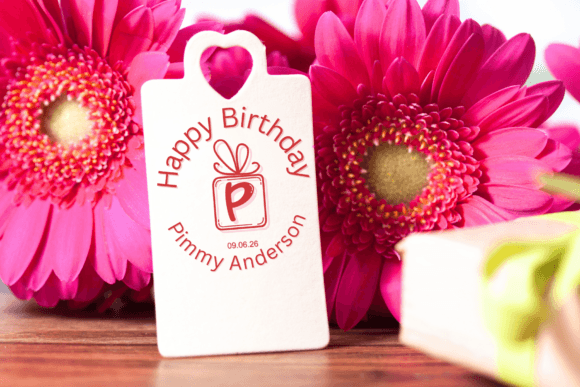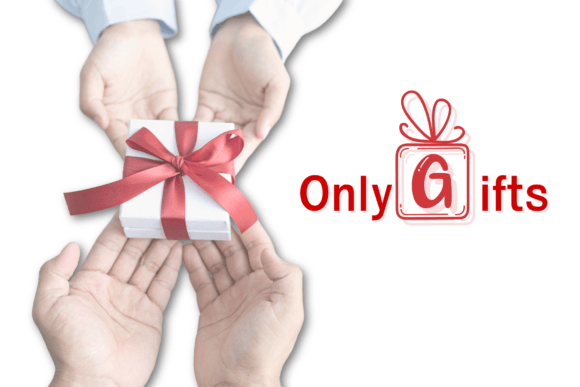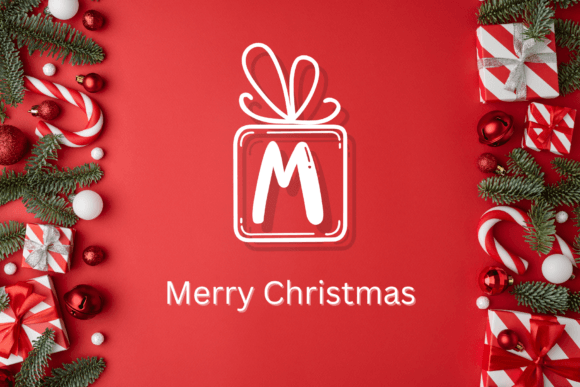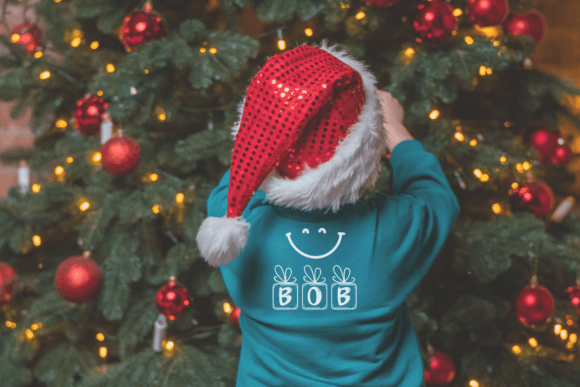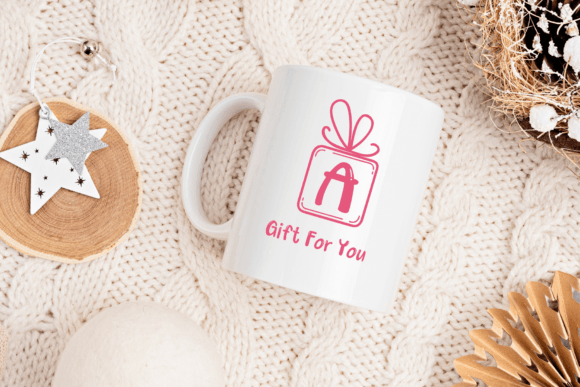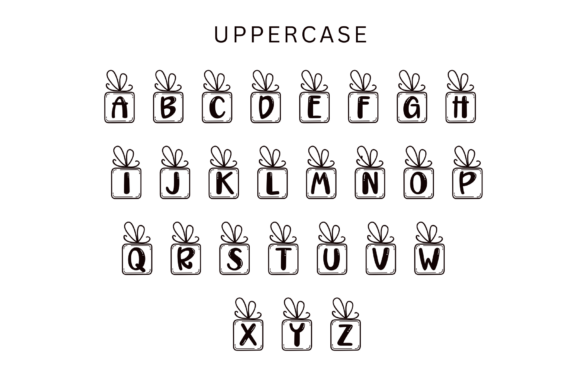
Introducing Gift Box Font: The Ultimate Addition to Your Creative Arsenal
Are you a designer, crafty enthusiast, or someone who loves to add a personal touch to gifts? Look no further! We’re excited to introduce the Gift Box Font, a charming and versatile typeface designed to elevate your creative projects and gifting needs. This delightful font is set to become your go-to choice for creating memorable, joy-filled moments that will leave a lasting impression.
The Gift Box Font: A Perfect Blend of Style and Whimsy
The Gift Box Font is more than just a font – it’s an experience. Imagine being able to add a touch of festivity and uniqueness to your designs, turning ordinary projects into extraordinary, unforgettable gifts and creations. With Gift Box Font, you can let your creativity run wild and watch as your designs transform into visually stunning masterpieces.
Key Features of Gift Box Font
- Charming and Versatile: Gift Box Font boasts a unique and playful style that can be used across various design projects, from greeting cards and invitations to social media graphics and more.
- High-Quality Design: Crafted with attention to detail, Gift Box Font ensures crisp and clear rendering, even at smaller sizes, making it perfect for a wide range of applications.
- Customizable: Experiment with different sizes, colors, and styles to match your brand or project’s unique needs. Gift Box Font is designed to be flexible and adaptable.
Gift Box Font is not just a font; it’s a tool that unlocks a world of creative possibilities. Here are a few ideas to get you started:
- Greeting Cards and Invitations: Add a personal touch to your cards and invitations, making them stand out and feel more special.
- Social Media Graphics: Elevate your social media posts with eye-catching graphics that incorporate Gift Box Font, perfect for announcements, promotions, or just sharing your creativity.
- Branding and Packaging: Use Gift Box Font to create unique and memorable branding elements, such as logos, labels, and packaging that reflect your brand’s personality.
- DIY Projects: Whether you’re making gifts, decorations, or personal items, Gift Box Font can add that extra special something to make your projects shine.
Why Choose Gift Box Font?
In a world where details matter, Gift Box Font offers a unique opportunity to stand out. Here are a few reasons why Gift Box Font should be your top choice:
- Unique Style: Gift Box Font offers a fresh and distinctive look that will set your designs apart from the rest.
- Time-Saving: With its easy-to-use design, you can create stunning projects in less time, allowing you to focus on the creative aspect rather than the technicalities.
- Versatility: From digital projects to print materials, Gift Box Font is designed to work seamlessly across various mediums.
Gift Box Font is more than just a typeface – it’s a key to unlocking a world of creativity and possibility. Whether you’re a professional designer looking to elevate your branding and client projects or a DIY enthusiast aiming to add a personal touch to your gifts and creations, Gift Box Font is the perfect addition to your creative arsenal. So why wait? Download Gift Box Font today and start creating memorable, joy-filled moments that will leave a lasting impression.